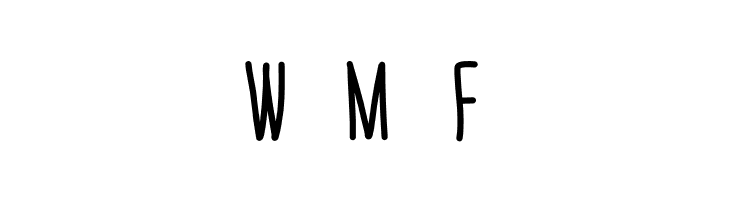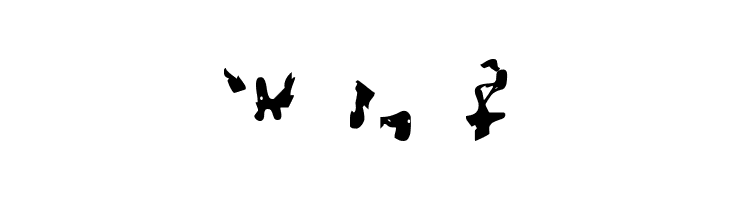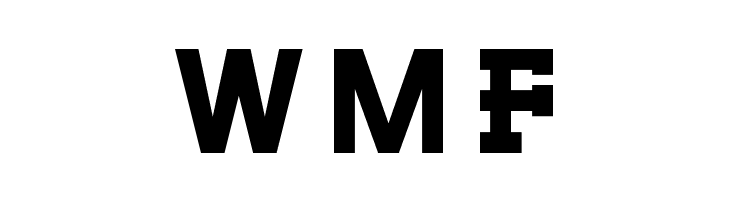
A bold, geometric font with angular shapes and enclosed characters.
A bold, geometric font with a futuristic and dynamic style.
A modern, geometric font with rounded edges and consistent stroke width.
An abstract, artistic font with bold, irregular strokes and a chaotic style.
A bold, geometric font with a modern and industrial aesthetic.
A decorative font using human figures to form each letter, offering a unique and artistic style.
A clean, modern typeface with consistent stroke width and excellent legibility.
A bold, angular font with a medieval or gothic style, featuring sharp, geometric characters.
A modern, geometric font with mechanical elements and bold, angular letters.
A decorative script inspired by Tolkien's Elvish writing, featuring elegant, flowing characters.
A decorative script with flowing, ornate characters inspired by elvish writing.
An elegant, bold, and italic script font with a mystical, calligraphic style.
A bold, geometric font with a modern and striking appearance.
A bold, condensed font with a modern, geometric style.
A classic serif typeface with elegant serifs and moderate stroke contrast.
An elegant italic font with classic calligraphic influences and modern refinement.
A playful, casual handwritten font with irregular strokes and an organic flow.
A playful, cursive font with fluid, whimsical strokes.
A pixelated, retro-style font with a blocky, digital appearance.
A playful, hand-drawn font with tall, narrow letters and a casual style.
A bold, modern font with thick strokes and strong visual impact.
A bold, impactful font with strong strokes and modern appeal.
A modern, geometric sans-serif font with a clean and professional look.
A clean, modern typeface with geometric structure and uniform stroke widths.
A bold, angular font with sharp edges and dynamic strokes, ideal for impactful designs.
A bold, playful font with a 3D block-like appearance.
A bold, robust serif font with a strong, authoritative presence.
A bold, impactful font with thick, block-like characters ideal for strong visual presence.
A bold, three-dimensional font with a strong geometric structure and shadow effect.
A bold, geometric font ideal for impactful and modern designs.
A bold, serif font with strong, thick strokes and high legibility.
A bold, contour-styled font with a modern yet classic appeal.
A bold, slab serif font with a vintage Western style.